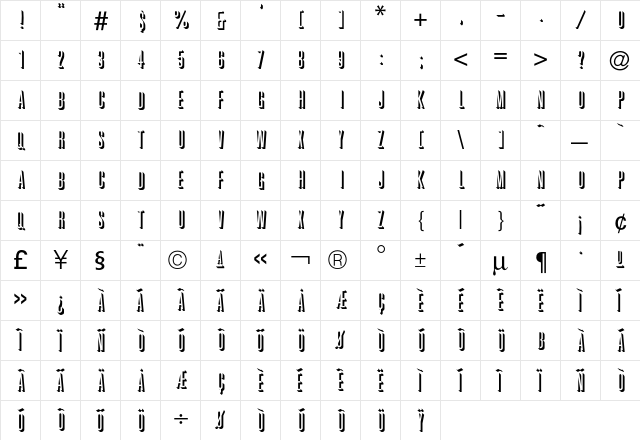
Graphik Shadow Font Preview
Graphik Shadow
Design Context for Graphik Typeface
Graphik is built around its visual character rather than neutral utility — its distinctive forms are designed to make an impression at display sizes.
Font Pairing: Pair with a clean neutral sans-serif for body copy to let Graphik's character lead without overwhelming the composition.
Pro Tip: Use Graphik exclusively at display sizes — it was designed to be seen, not read at length. Let a neutral companion handle body copy.